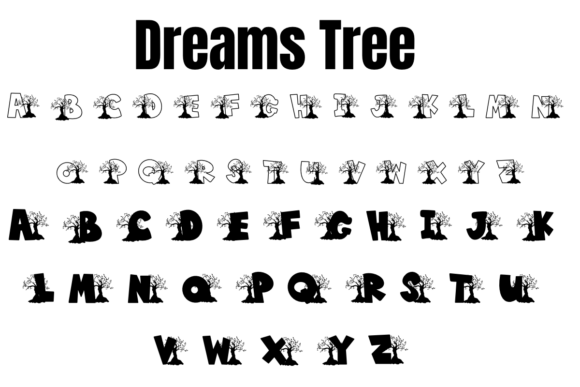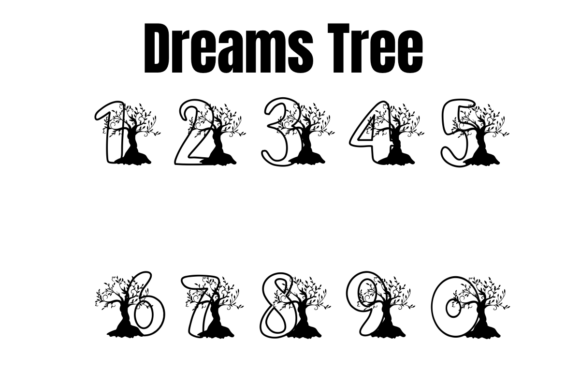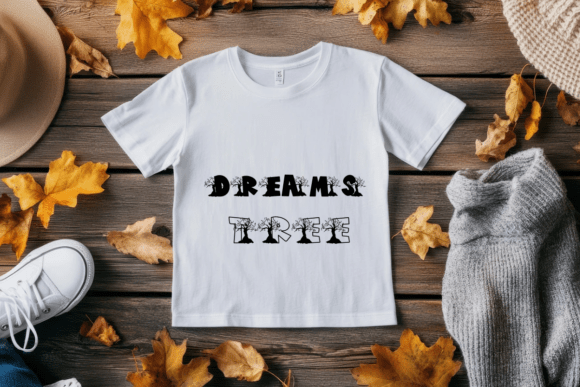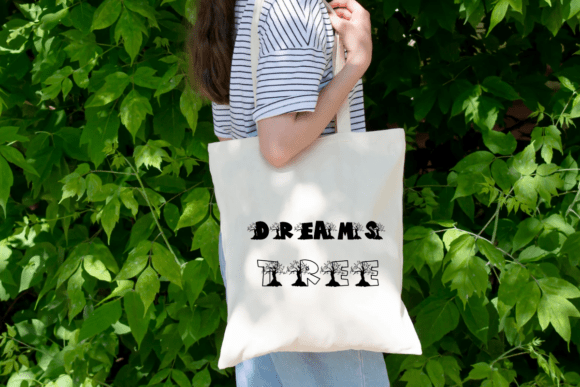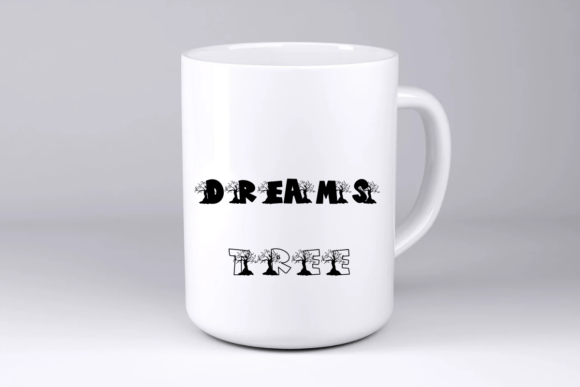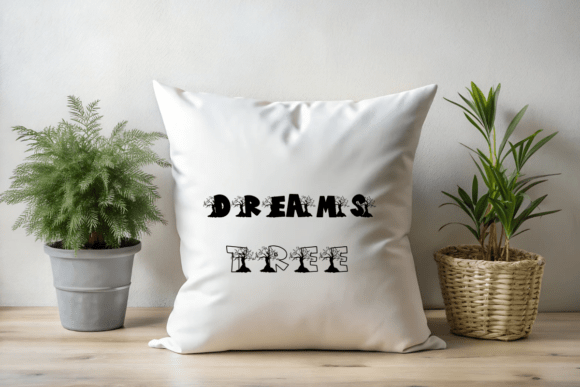
Dreams Tree Font: Where Nature Meets Typography
Imagine a world where typography and nature blend seamlessly together, creating a visual experience that’s both organic and surreal. Welcome to the world of Dreams Tree Font, a bold and imaginative decorative font that brings this vision to life. In this article, we’ll explore the unique features of Dreams Tree, its design inspiration, and the various ways you can use it to elevate your design projects.
The Design Inspiration Behind Dreams Tree
Dreams Tree Font is a hand-drawn, decorative font that combines the beauty of nature with the art of typography. Each character is uniquely integrated with a whimsical tree design, creating a powerful visual impact that’s sure to capture attention. The uppercase characters are carefully crafted to resemble tree trunks and branches, giving the font a raw, earthy feel with artistic flair. The designers of Dreams Tree drew inspiration from the natural world, infusing the font with a sense of wonder and magic.
Key Features of Dreams Tree Font
- Bold and Imaginative: Dreams Tree Font is a statement font that’s designed to make a bold impression. Its unique blend of nature and typography creates a visual experience that’s both captivating and memorable.
- Hand-Drawn Look: The font’s hand-drawn look gives it a raw, earthy feel that’s perfect for designs that require a touch of whimsy and personality.
- Whimsical Tree Design: Each character features a unique tree design that’s both imaginative and visually striking.
- Eco-Friendly and Fantasy Themes: Dreams Tree Font is perfect for projects centered on eco-friendly themes, fantasy, or Halloween-inspired designs.
Dreams Tree Font is a versatile font that can be used in a wide range of design projects, including:
- Posters: Create eye-catching posters that showcase your message in a bold and imaginative way.
- Logos: Use Dreams Tree Font to create a unique and memorable logo that reflects your brand’s personality.
- Book Covers: Add a touch of magic to your book covers with Dreams Tree Font, perfect for fantasy, nature, or eco-friendly themes.
- Environmental Campaign Materials: Use Dreams Tree Font to create impactful environmental campaign materials that inspire and educate.
Why Choose Dreams Tree Font?
With its striking and mysterious style, Dreams Tree Font is ideal for anyone who wants their message to grow, stand tall, and be remembered. Here are just a few reasons why you should choose Dreams Tree Font for your next design project:
- Unique Visual Impact: Dreams Tree Font creates a powerful visual impact that’s sure to capture attention.
- Flexibility: The font’s versatility makes it perfect for a wide range of design projects.
- Eco-Friendly: Dreams Tree Font is perfect for eco-friendly themes and designs that promote sustainability.
- Artistic Flair: The font’s hand-drawn look and artistic flair add a touch of personality to any design project.
In conclusion, Dreams Tree Font is a bold and imaginative decorative font that brings together the beauty of nature and the art of typography. With its unique features, versatility, and eco-friendly themes, it’s perfect for designers and crafters who want to add a touch of magic to their design projects. Whether you’re designing posters, logos, book covers, or environmental campaign materials, Dreams Tree Font is sure to make your message grow, stand tall, and be remembered.